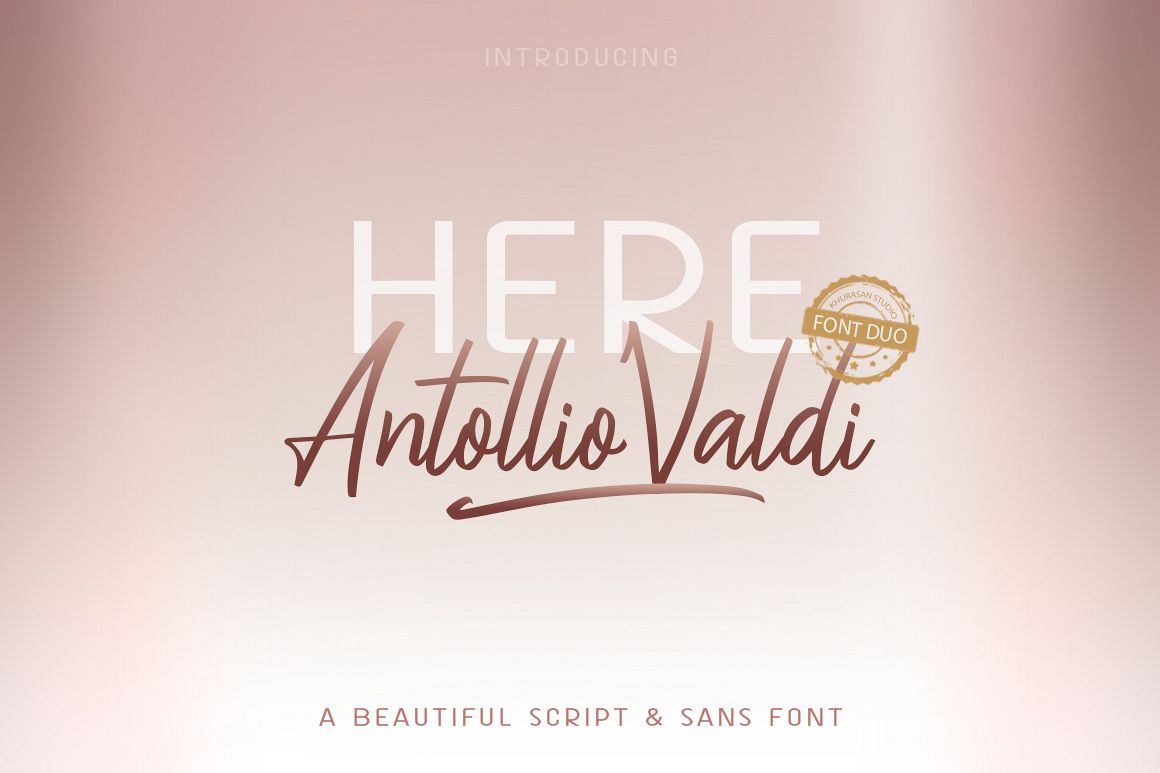
Here Antollio Valdi Font Duo
The Here Antollio Valdi Font is a fun modern script font, fresh & modern style with Sans font. You can combine script and sans to get amazing results. Here Antollio Valdi Font suitable for logo, branding, greeting card, poster and any design that you create.